dot-font: Letterpress in the Digital Age
Once upon a time, all typography was the result of printing on a letterpress. Today, in 2004, when type is largely digital, and printing is usually done by offset or newer technologies, we can still find creative typography in letterpress printing. It’s not just antiquarian or deeply nostalgic; it’s sometimes innovative and original. Two of the most interesting practitioners of modern letterpress printing are C. Christopher Stern and Jules Remedios Faye, and now they have a well-designed Web site to show off their craft.
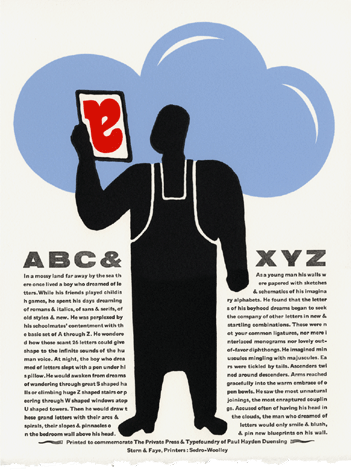
Figure 1: Letterpress print, designed and printed by Chris Stern, with text written by Chris Stern and Jules Faye.
Mix & Match
Chris Stern and Jules Faye have been printing together for more than a decade, under the name of Stern & Faye, Printers. Each of them has also been printing for longer than that under their individual imprints: Chris established Grey Spider Press in 1986, and Jules established Street of Crocodiles Letterpress Printery in 1990. When they moved out of Seattle in 1994, they settled in the rural Skagit Valley and set up what they referred to as a “printing farm,” with a barn full of working presses and typesetting equipment. Separately and together, they have produced an impressive body of printed work.
Figure 2: The logo for Stern & Faye, Printers, composed from wooden type.
What’s unique may be their combination of “fine press” sensibility and a freewheeling approach to typography and art. You don’t often see letterpress these days in Futura (a favorite typeface of Chris’s); more often, it’s a delicate, Renaissance-derived face like Garamond. Stern & Faye have command of both idioms, and mix them freely.
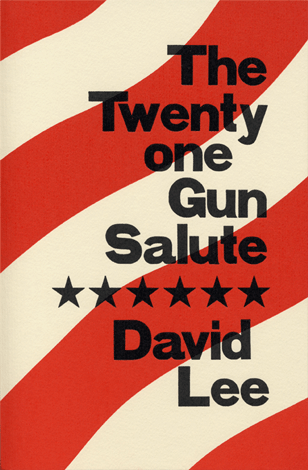
Figure 3: Cover of David Lee’s ‘Twenty one Gun Salute’ (Grey Spider Press, 1999).
Crafted by Hand, Composed by Mind
The fine-press books that Chris and Jules publish, like most fine-press books these days, are usually poetry or short prose. There’s a practical reason for this—much poetry is short, and even a long poem rarely packs the page as densely with words as prose does. When you’re setting the type by hand, brevity is a virtue. (Stern & Faye have the capacity to set longer books, without doing all the work the hard way; they’ve got a Monotype caster, which makes and composes hot-metal type for typesetting. They’ve stayed away from the hybrid technology of composing digital type and turning it into metal or polymer plates that can be printed by letterpress.)
Figure 4: Two-page spread from Rebecca Brown’s “Excerpts from a Family Medical Dictionary” (Grey Spider Press, 2001).
There’s an aesthetic reason too—good poetry and good prose deserve this kind of treatment. None of the work published by either Grey Spider or Street of Crocodiles is the slightest bit “precious”; it’s all strong and worth reading. And rereading, which is why people make books that will last.
Figure 5: Page from Jules Faye’s ‘Fallen Angels’ (Street of Crocodiles, 1999).
They also like to play, sometimes, with retro themes. Lately Chris has been doing a series of art prints, mixing up various kinds of old type with antique or out-of-date images from advertising and job printing. He layers them densely, but wittily, and the effect pleases both the eye and the mind.
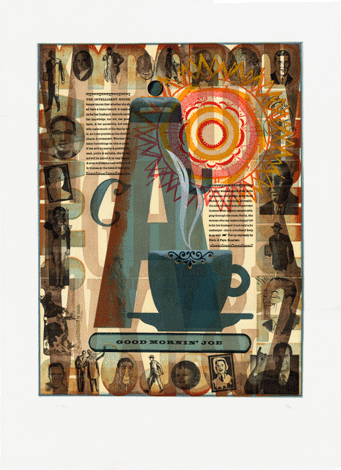
Figure 6: Letterpress print, “Good Mornin’ Joe,” by Chris Stern, using text from ads for a 19th-century coffee company and multiple layers of type and image.
Image & Object
The Faye & Stern website, designed by Amy E. Redmond, is particularly well conceived and clearly laid out; it presents the range of Chris and Jules’s work very effectively, not only showcasing their artistic talents but giving information for anyone who would like to take advantage of their commercial job-printing capabilities.
Figure 7: Letterpress print, “Myti Good,” designed and printed by Chris Stern, incorporating 19th-century potato ads.
Yes, there’s an irony in talking about viewing letterpress printing on a website. Letterpress is an essentially three-dimensional medium, where the ink is slightly impressed into the paper, rather than laid flat on top of it as in offset printing. (Traditionally, the letterpress printer did not want to exaggerate this effect; printers would talk approvingly of the “kiss impression,” and look down on anyone whose printing left a noticeable indent in the paper. Today, some printers seem to want to show off the fact that they’re doing letterpress, by punching the type deep into the paper.) Part of the appeal of letterpress printing now, when it’s neither a standard nor a common mode of reproduction, is in the materials used: the texture and feel of the paper and (if it’s a book) the binding. None of this can be conveyed through an electronic image on a computer screen—and very little of the richness of color and depth in letterpress ink, either. But it can suggest these things, and it can show something of the care given to the typography. For more, go look at the books themselves.
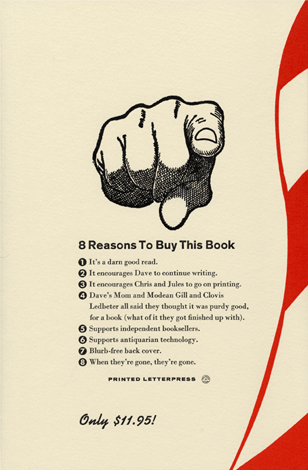
Figure 8: Back cover of David Lee’s “Twenty one Gun Salute.”